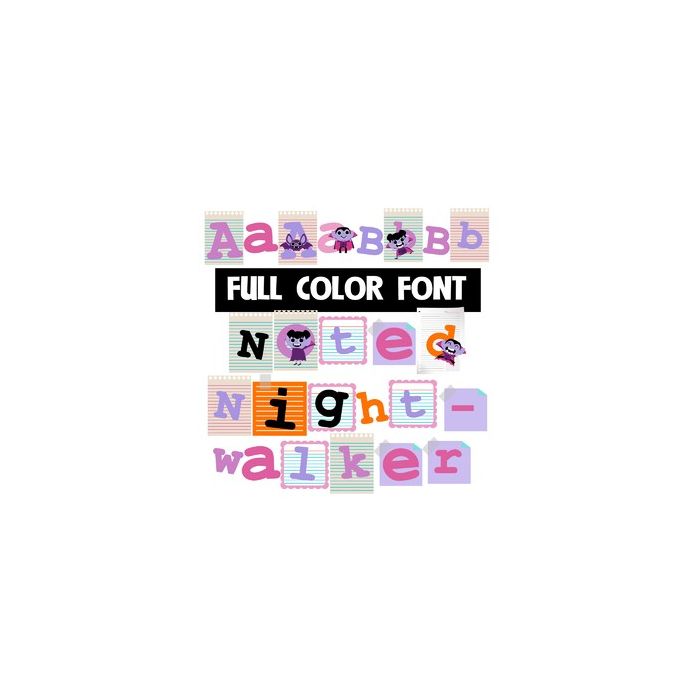
This full-color font features a fun, Halloween color palette with a mix of lettering and vampires. There is an alt upper and lowercase with additional colors that you can access through Silhouette's glyph map.